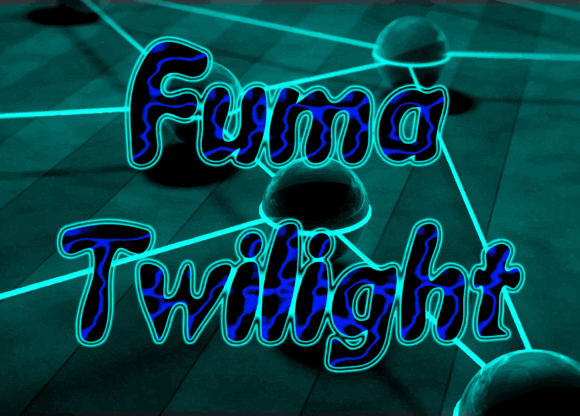
Dive into the enchanting realm of Fuma Twilight, a breathtaking script font family that will ignite your creative spirit. Designed by the talented Zero_Design, Fuma Twilight exudes a playful charm that's sure to make a statement in your designs.
With its meticulously crafted curves and whimsical strokes, Fuma Twilight dances across the page, captivating the eyes and stirring the imagination. Experience the thrill of creating logos that command attention, handwritten designs that ooze personality, and t-shirts that speak to the heart. Unleash your creativity and watch as your designs transform into captivating works of art.
Picture the excitement of crafting posters that burst with vibrancy, advertisements that leave a lasting impression, and game and comic-themed designs that transport you to fantastical worlds. Fuma Twilight is your gateway to a universe of visual storytelling, where your ideas take center stage and captivate audiences.
Gone are the days of ordinary fonts. Embrace the allure of Fuma Twilight and embark on a creative journey like no other. Let your designs shine with a unique personality that reflects your vision and artistry. Fuma Twilight is more than just a font; it's an invitation to let your imagination run wild and create masterpieces that leave an indelible mark.